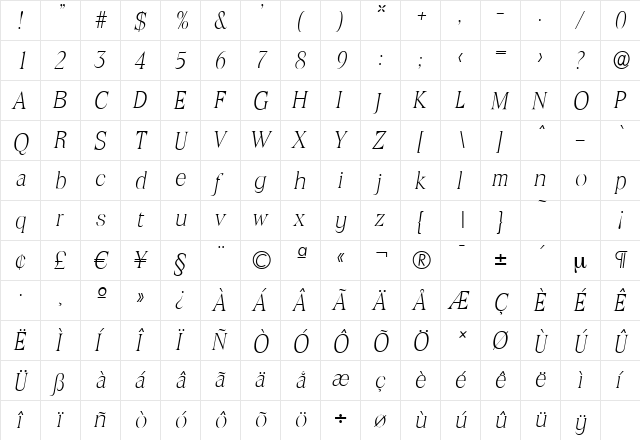
ToledoSerial-Xlight Italic Font Preview
Design Context for ToledoSerial-Xlight Typeface
ToledoSerial-Xlight offers clean, dependable letterforms without strong stylistic allegiance, making it a practical choice for designers who need flexibility. The dynamic lean of this cut emphasises speed and emphasis in any layout. The delicate stroke weight brings airiness and refinement to layouts.